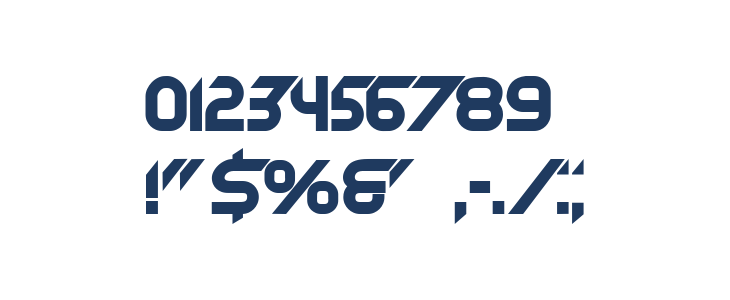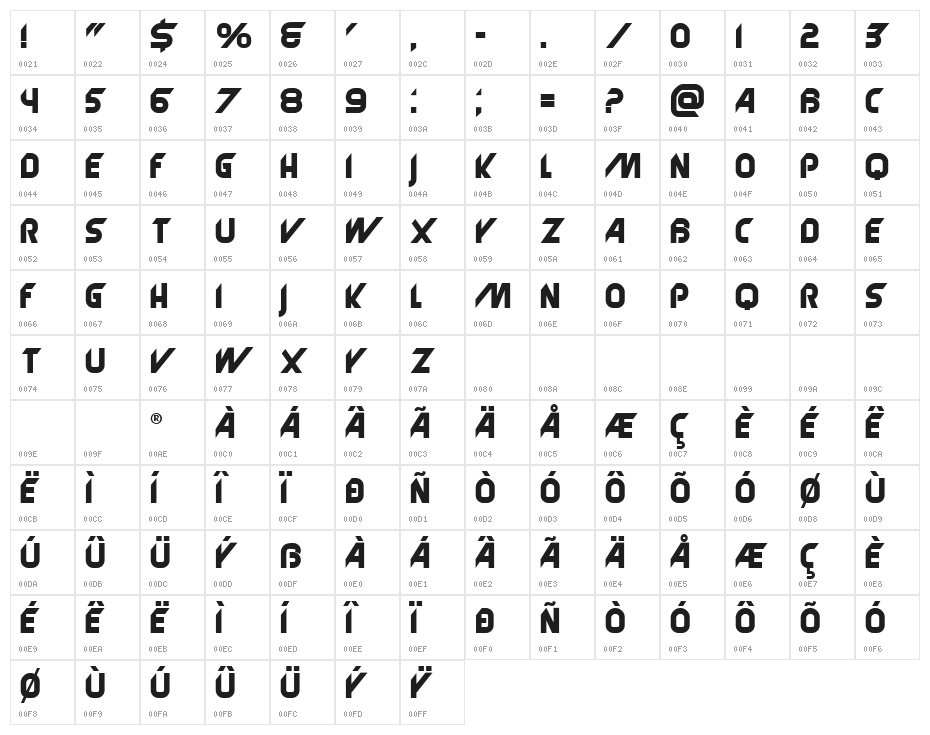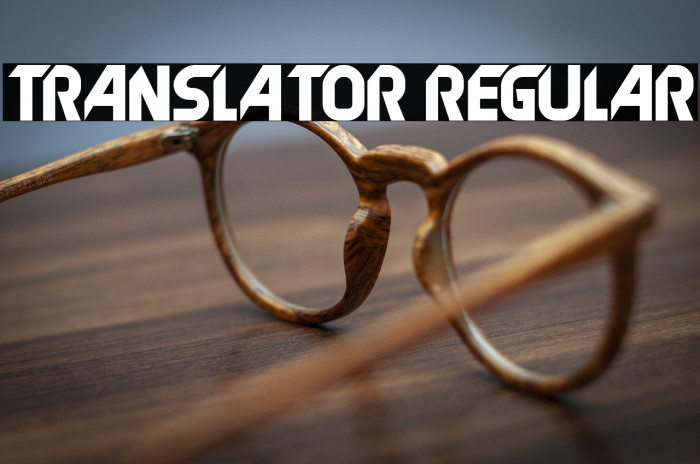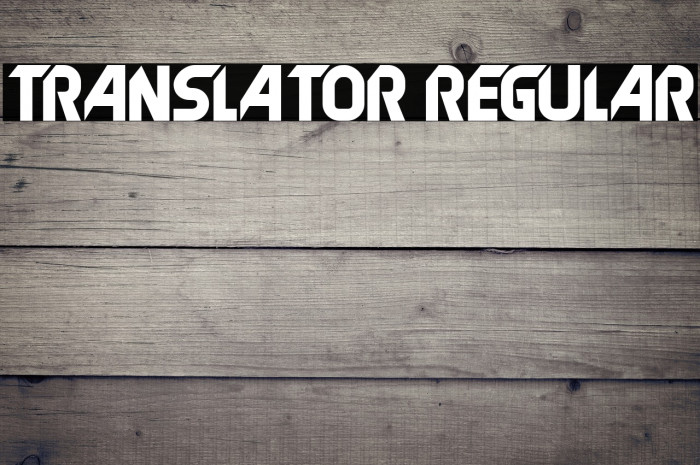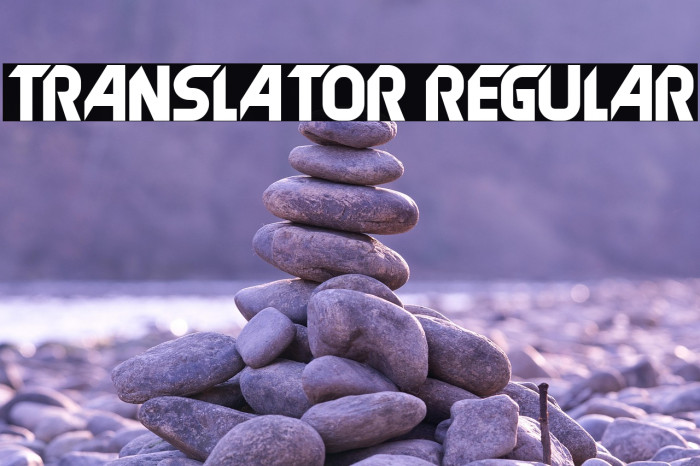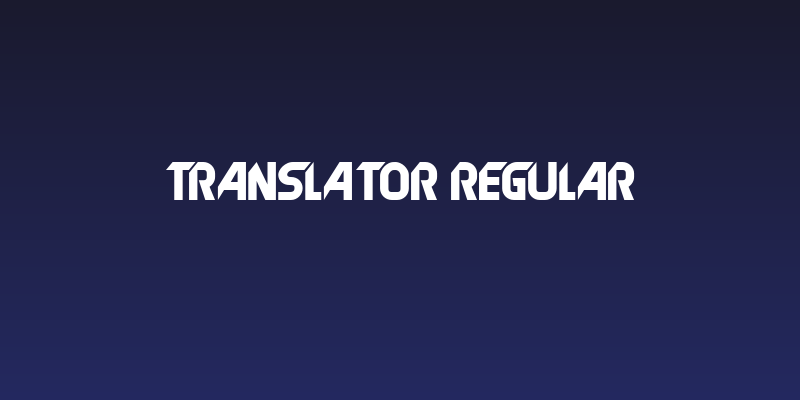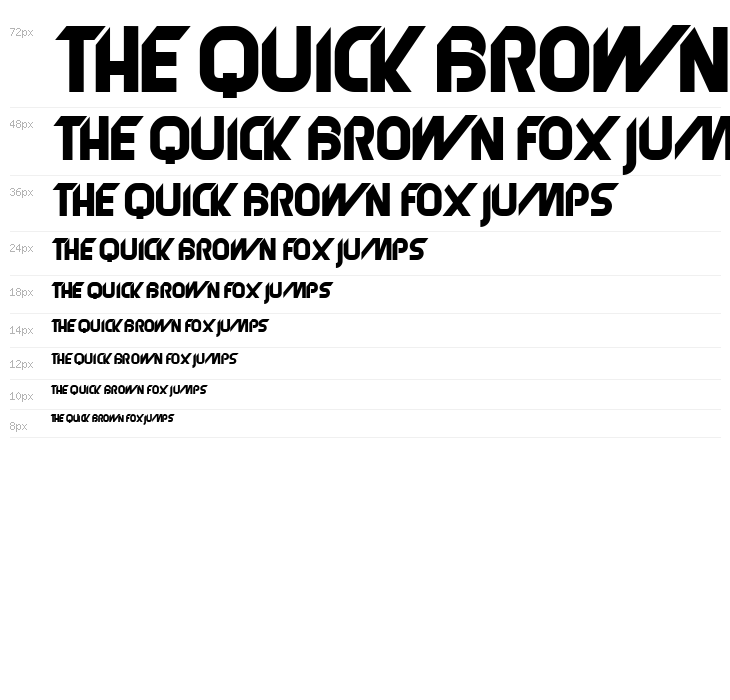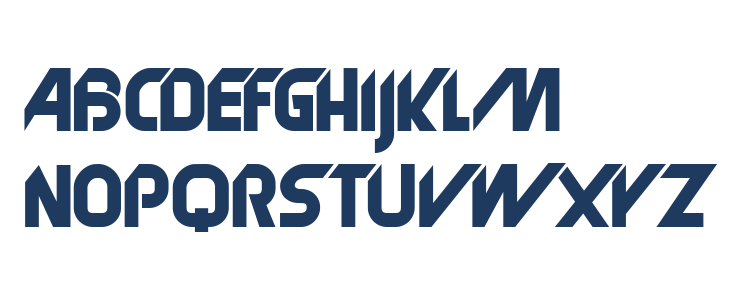
Translator Regular Font
Translator Regular Description
This font features a bold and geometric design with sharp angles and a futuristic aesthetic. The uppercase letters are distinct with a strong presence, characterized by their angular cuts and dynamic shapes. The lowercase letters maintain a similar style, ensuring consistency throughout the typeface. Numbers are equally bold and geometric, making them stand out. Special characters are designed to match the overall angular and modern style, providing a cohesive look. The font's design is suitable for projects that require a strong, impactful visual presence.